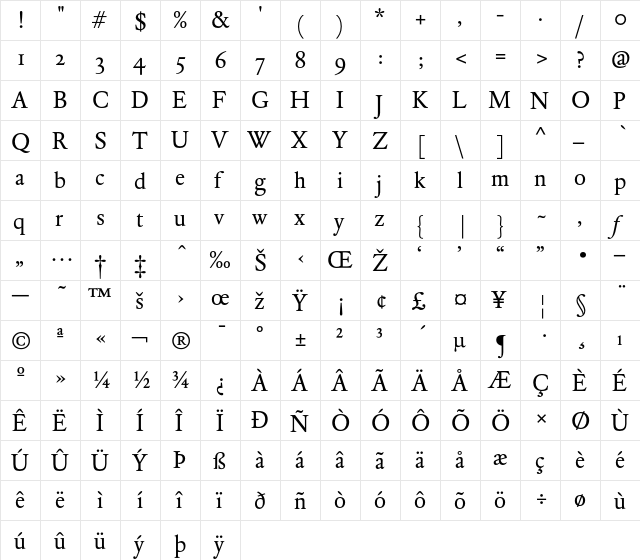
DTLElzevirSTBook Regular Font Preview
DTLElzevirSTBook Regular
Design Context for DTLElzevirSTBook Typeface
DTLElzevirSTBook takes a measured approach to typography — its balanced proportions and neutral character make it a reliable workhorse for both digital and print work.